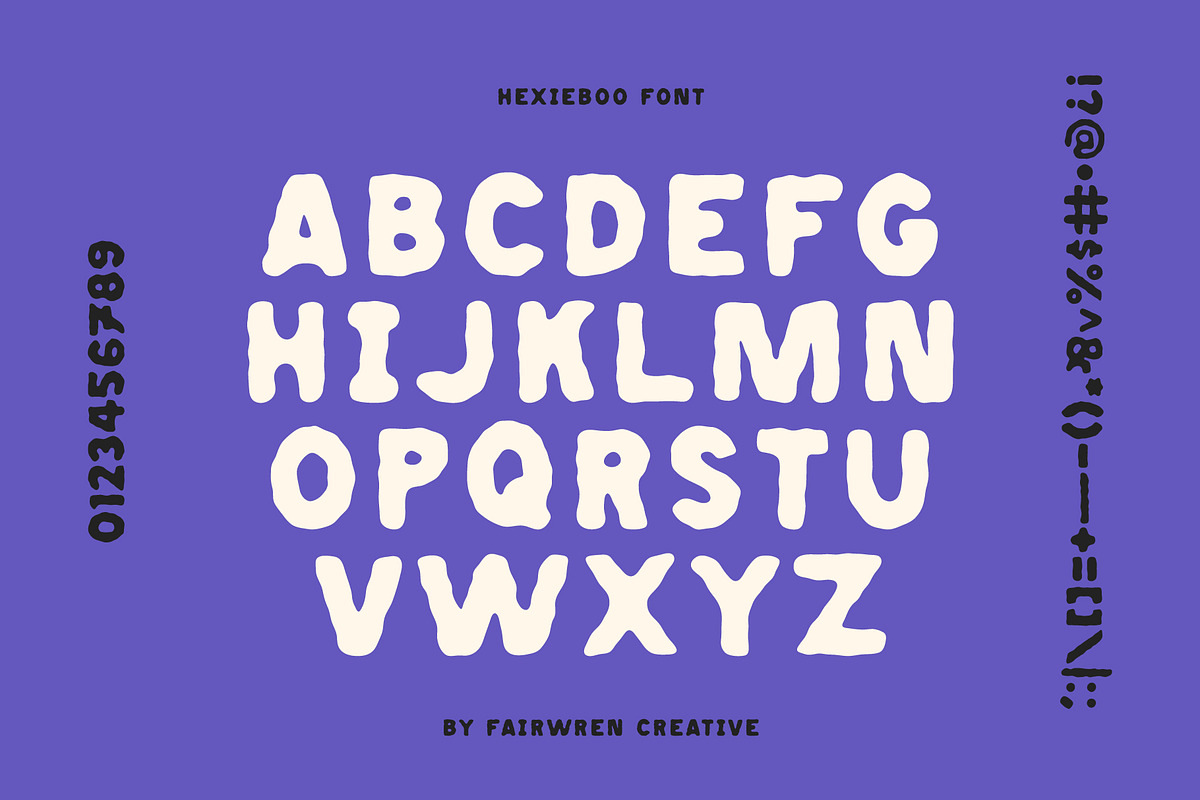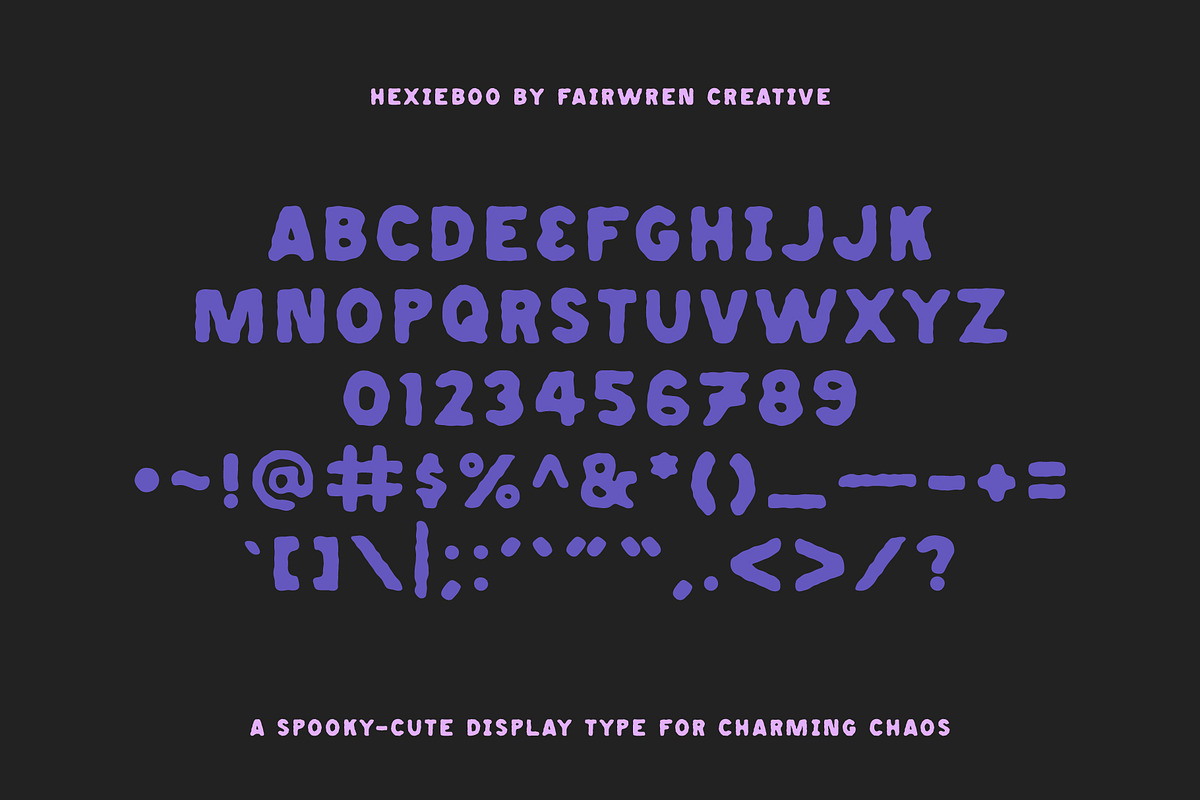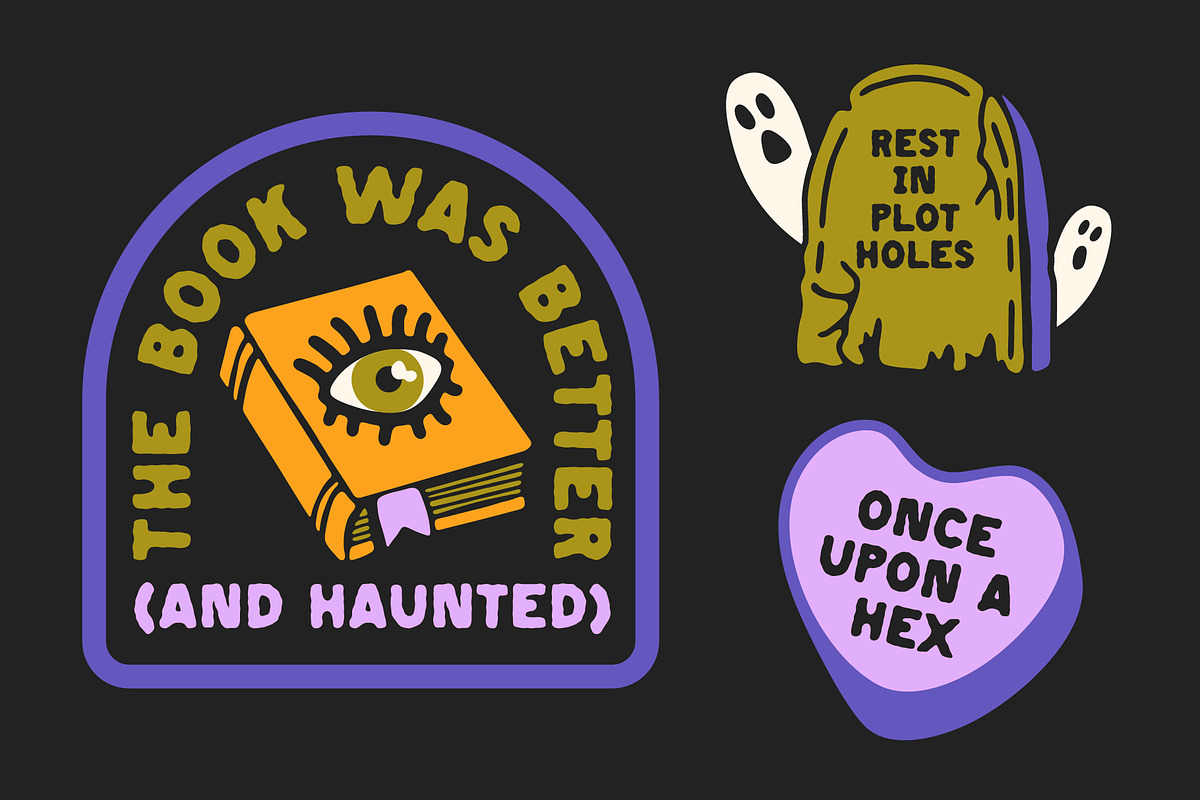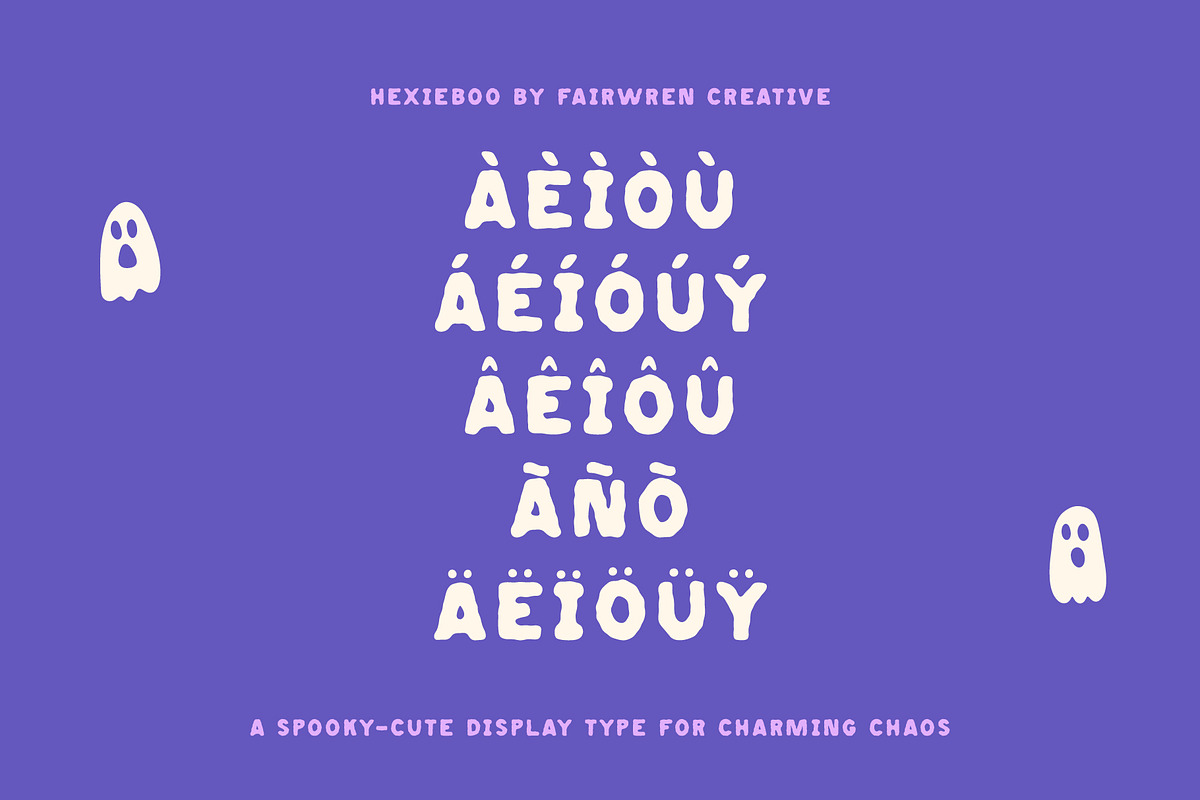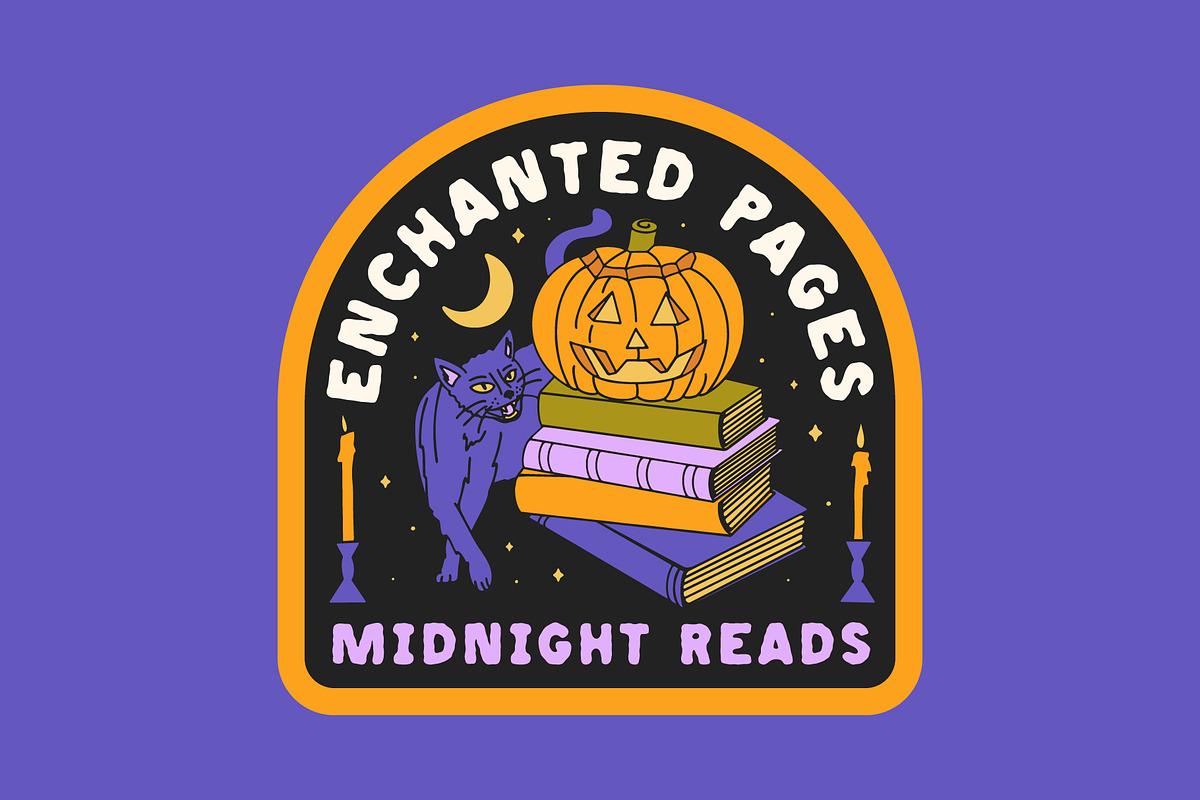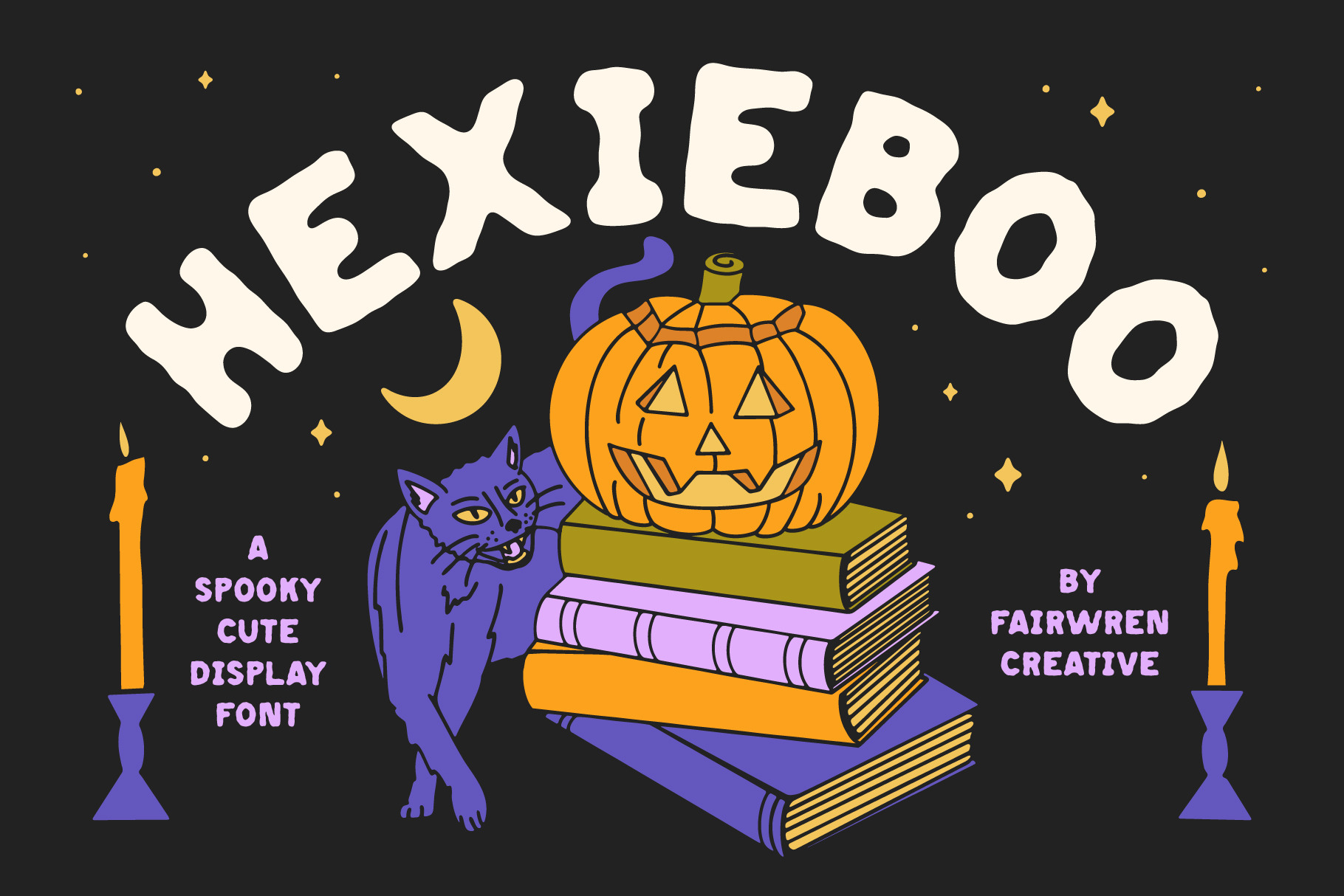
Hexieboo Font
Hexieboo is a whimsical, hand-drawn display font full of spooky-cute charm! With slightly wonky lines, Hexieboo is perfect for magical branding, seasonal stickers, party invites, book covers, and more.